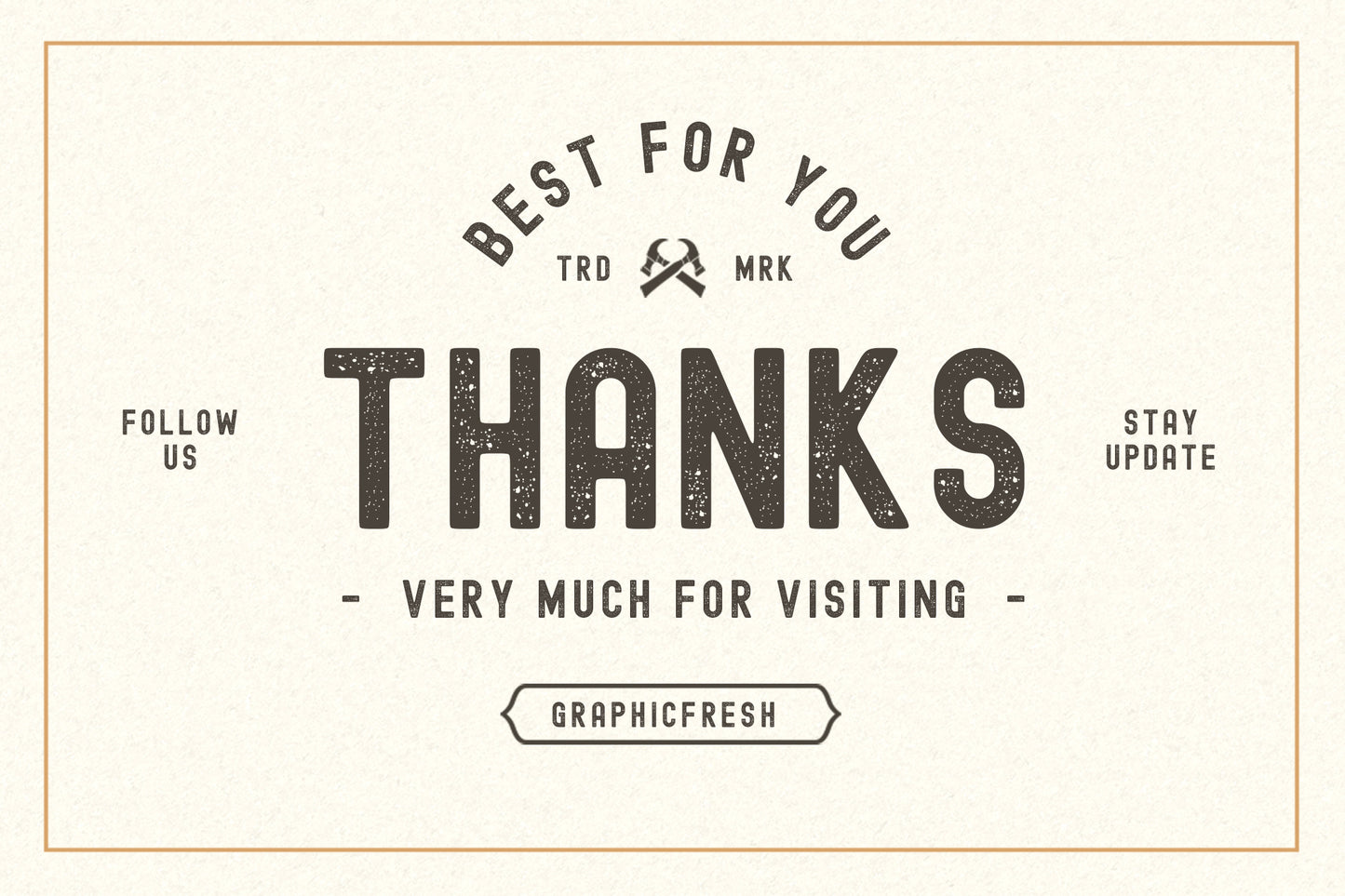
Free Edmund Vintage Font (FREE)
Today we're glad to feature this free edmund – vintage font (free). Go give some love to Pixelify for creating this top-notch typeface. Amaze your fellow designers and create stunning designs with this fancy font.